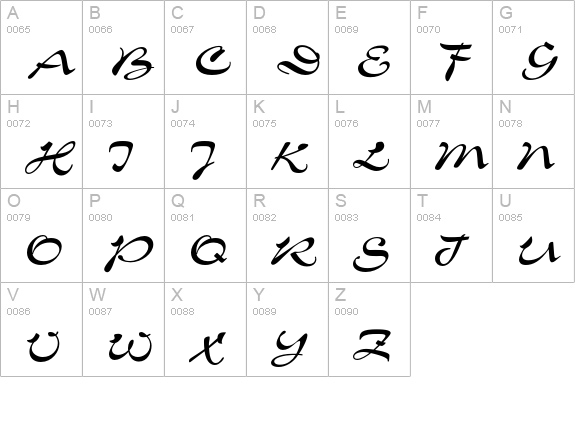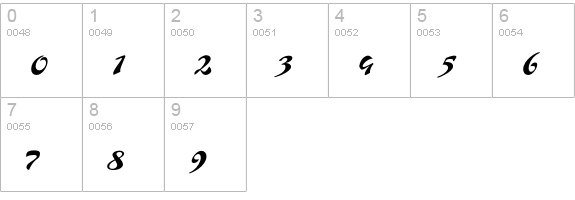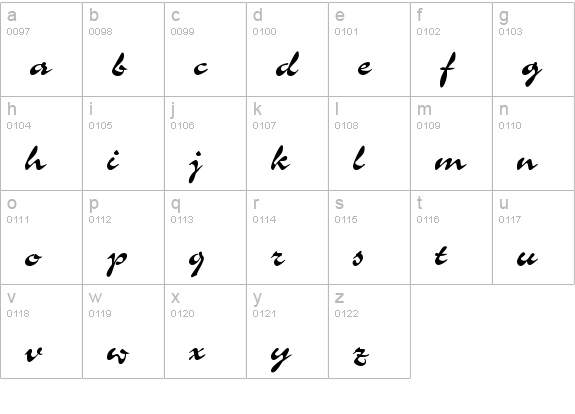
PT Corrida Cyrillic Font Details
The PT Corrida Cyrillic font is a stunning display typeface that exudes elegance and sophistication. With its sleek lines and modern design, this font is perfect for creating eye-catching headlines, logos, and posters. The PT Corrida Cyrillic font features a unique blend of classic and contemporary elements, making it versatile for a wide range of design projects. Best of all, the PT Corrida Cyrillic font is available for free download at FontsMarket.com. This means you can easily access this high-quality font without any cost, making it a valuable addition to your font collection. Whether you're a graphic designer, artist, or creative enthusiast, the PT Corrida Cyrillic font is sure to elevate your designs and make a lasting impression. Download it today and unleash your creativity with this exceptional typeface.